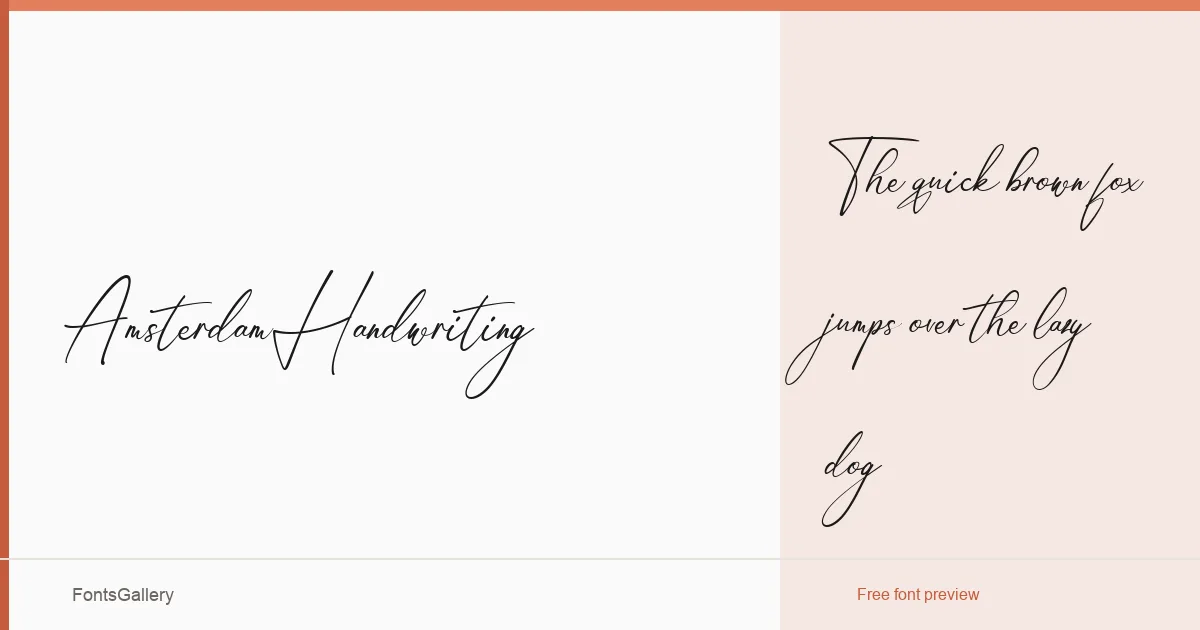
About Amsterdam Handwriting Font
Amsterdam Handwriting is a beautifully crafted handwritten typeface designed by Rizky Alemayo, capturing the timeless charm of expressive penmanship. With its elegant and romantic character, this font brings a sense of warmth and personal touch to any design project. Its classic sensibility makes it a versatile choice for a wide range of creative applications.
The letterforms of Amsterdam Handwriting exude an elegant, flowing quality reminiscent of fine calligraphy, with graceful strokes that evoke a romantic and classic aesthetic. Each character is crafted to feel natural and personal, as though written by a skilled hand, lending an air of sophistication and intimacy to the overall composition. The consistent rhythm and refined style of its glyphs make it both visually appealing and highly legible at display sizes.
Amsterdam Handwriting shines in projects that call for elegance and emotion, making it an ideal choice for wedding stationery, invitation cards, greeting cards, logos, and social media graphics. Its romantic and classic mood pairs effortlessly with the clean versatility of Helvetica for a balanced contrast, or alongside Aresink for a more cohesive, expressive typographic combination.